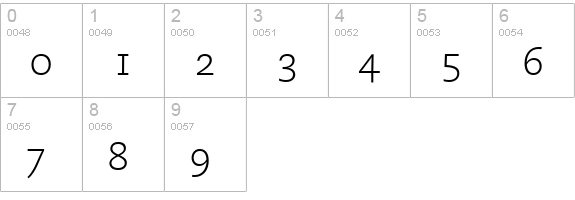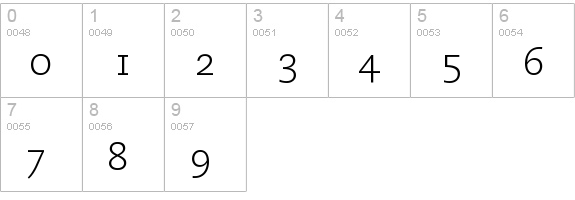
Monologue Light Caps SSi Light Small Caps Font Details
Monologue Light Caps SSi Light Small Caps is a refined, elegant variant in the Monologue typeface family \xE2\x80\x94 well suited to elegant body text, refined sub-headings, and luxury branding.
Monologue Light Caps SSi Light Small Caps font is a sophisticated and elegant typeface that exudes a sense of refinement and professionalism. With its clean lines and classic small caps design, this font is perfect for adding a touch of sophistication to any project. The light weight of the font gives it a delicate and airy quality, making it versatile enough to be used in a variety of design applications. What sets Monologue Light Caps SSi Light Small Caps font apart is that it is available for free download at FontsMarket.com. This means that you can easily access this high-quality font without any cost, making it an ideal choice for designers and creatives looking to enhance their projects without breaking the bank. Whether you're working on a branding project, editorial design, or any other creative endeavor, Monologue Light Caps SSi Light Small Caps font is sure to elevate your work with its timeless and elegant aesthetic.